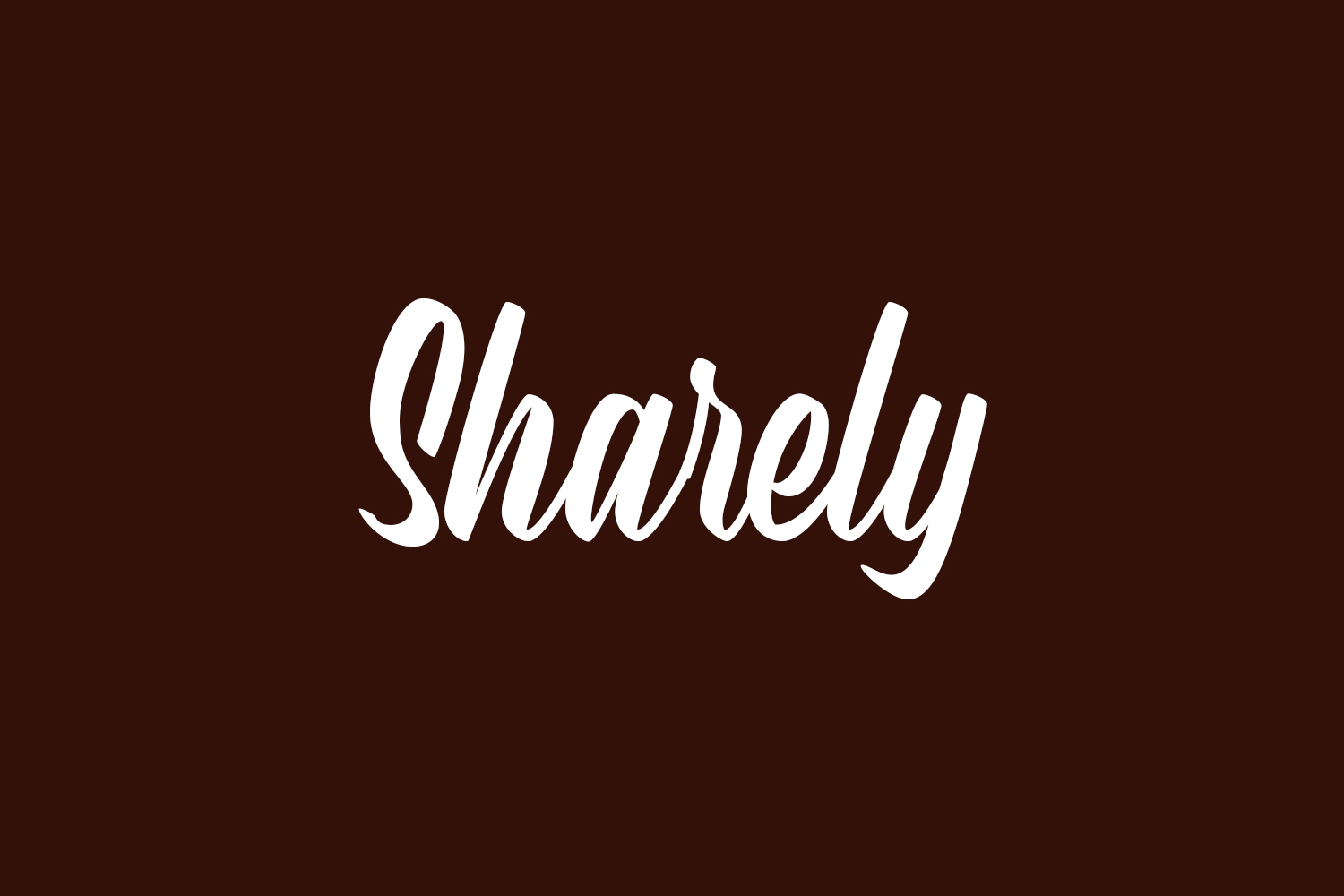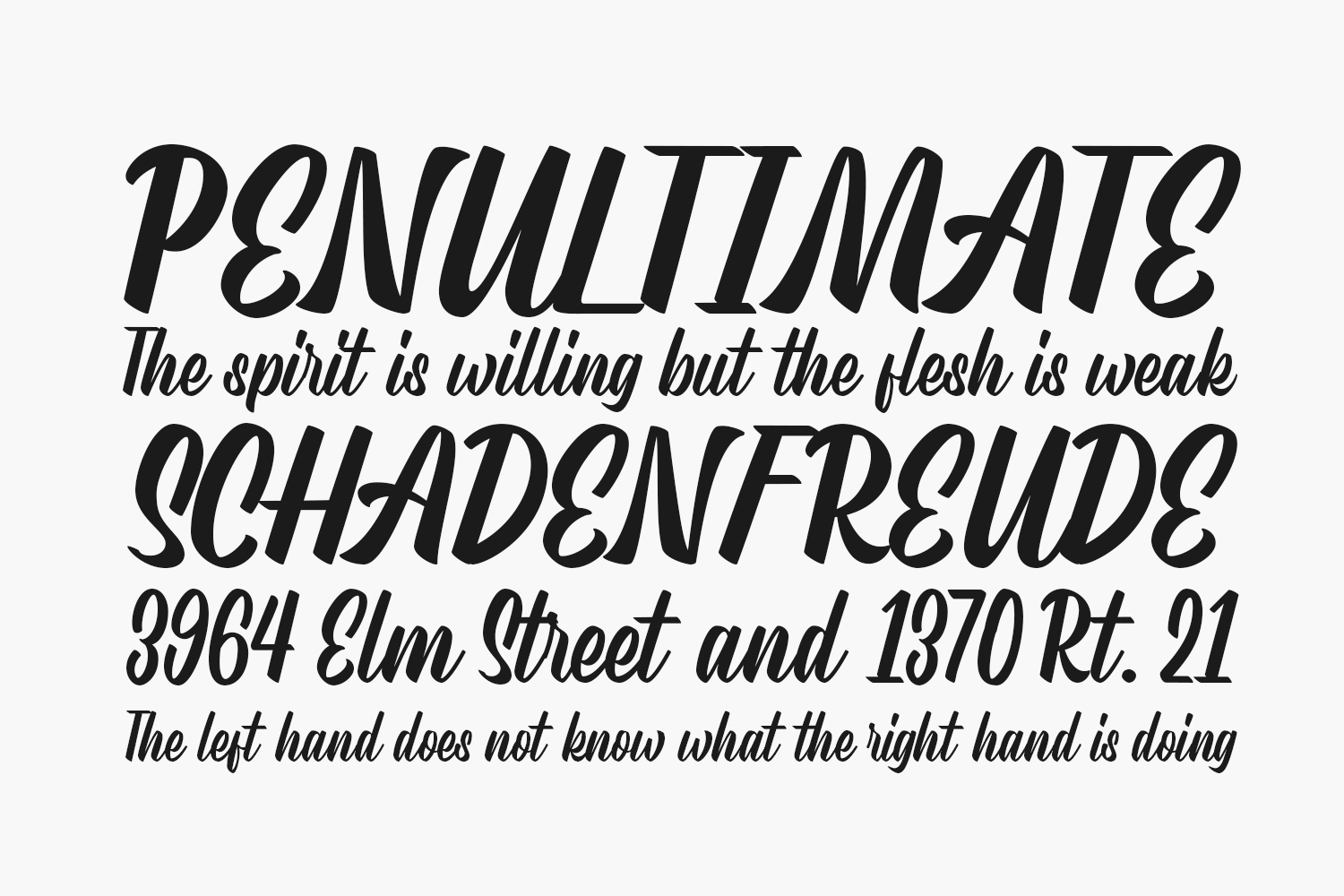
Sharely Free Font is a delicate and flowing handwritten font. Fall in love with its incredibly versatile style and use it to create gorgeous wedding invitations, beautiful stationary art, eye-catching social media posts, and much more. Sharely Free Font was designed by Arterfak Project and is free for personal use only. Please purchase the full version for commercial use.